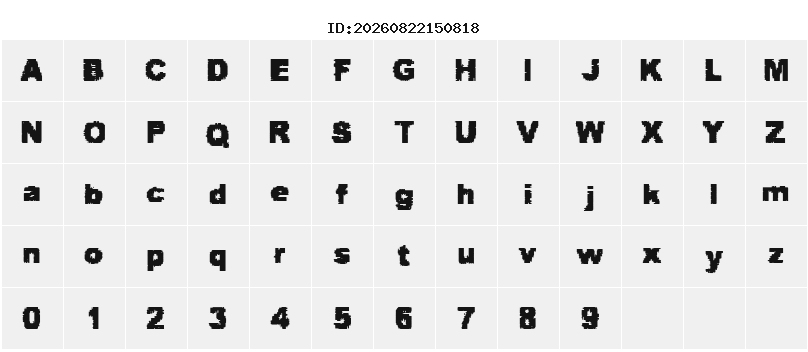
• Font Name: Scottie and Judy
• Font ID: Scottie and Judy
• Full Font Name: Scottie and Judy
• PostScript Name: ScottieJudy
About Scottie and Judy.ttf
Scottie and Judy.ttf is a modern, elegant sans-serif font designed for ultimate readability and visual harmony. Perfect for branding, headlines, web design, and print materials.